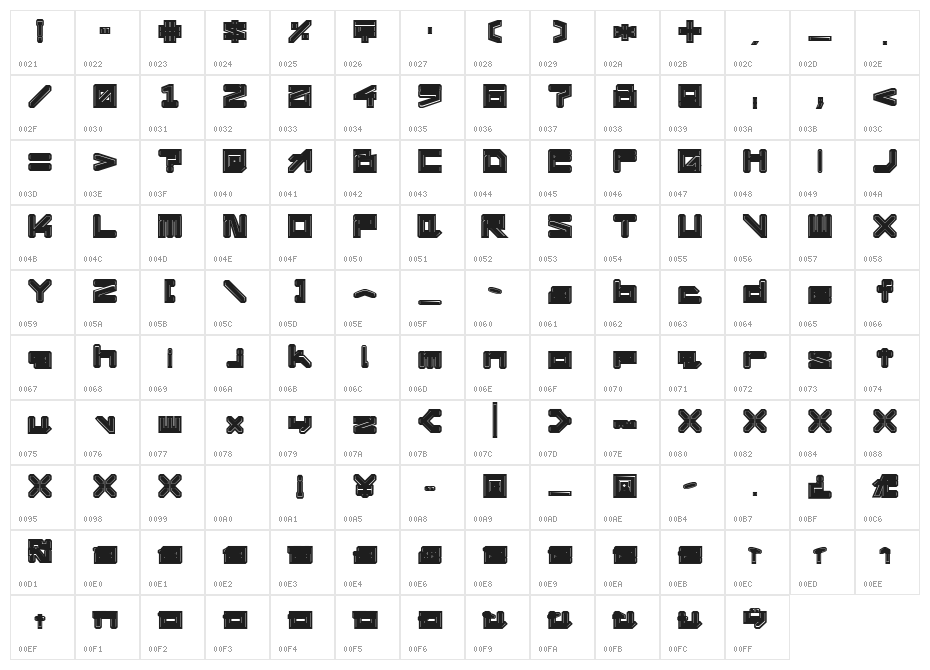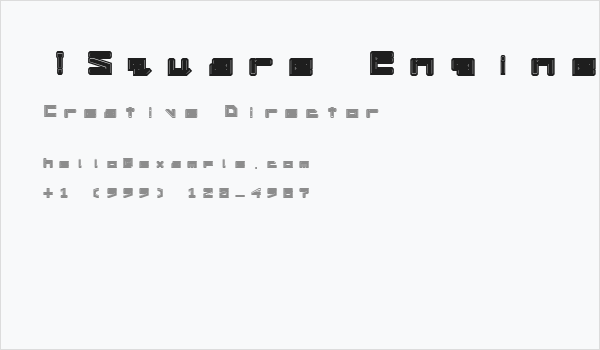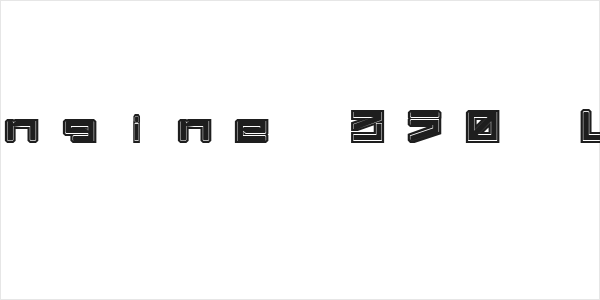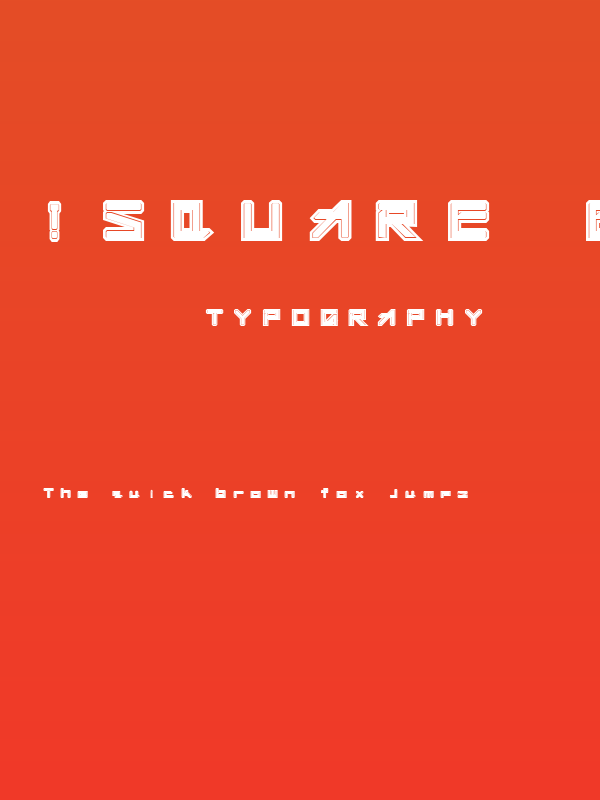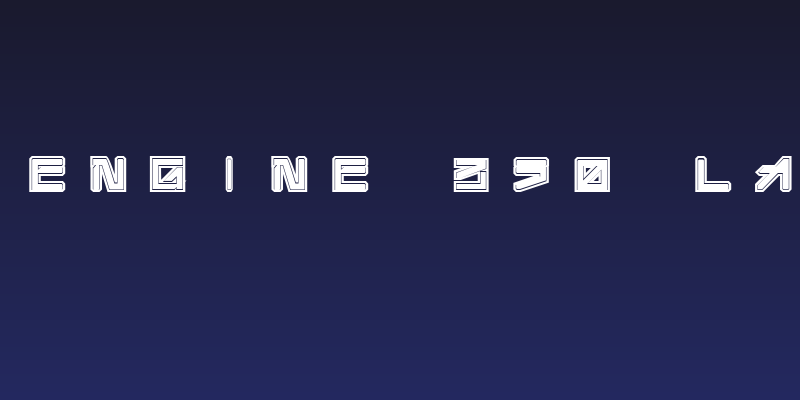
!Square Engine 350 Latex Bold Font
This font features a bold, geometric design with a strong emphasis on angular shapes and a futuristic aesthetic. The characters are constructed with a combination of solid and outlined elements, giving them a three-dimensional appearance. The uppercase letters are particularly striking, with sharp edges and unique cutouts that create a sense of movement and energy. The lowercase letters maintain the same geometric style, ensuring consistency throughout the typeface. Numbers and special characters are designed to match the bold and dynamic look of the alphabet, making this font suitable for attention-grabbing designs.
Overall StyleFuturistic, Dynamic
Proposed ProjectsIdeal for sci-fi themed projects, video game graphics, posters, and branding that requires a modern and edgy look.